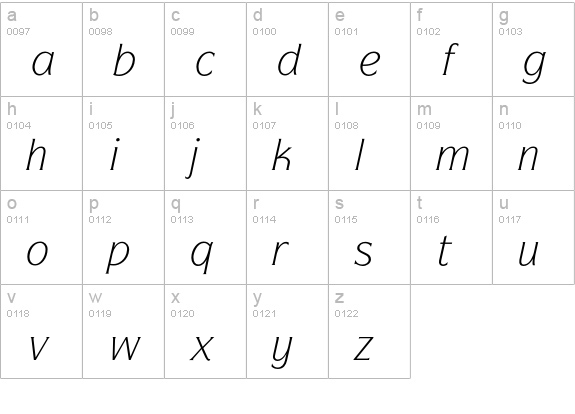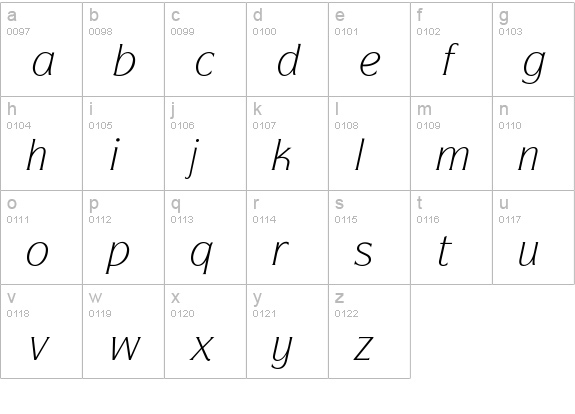
SymbolBookItalic Font Details
SymbolBookItalic is a captivating and elegant font that adds a touch of sophistication to any design project. With its delicate and flowing italic style, this font is perfect for conveying a sense of class and style. The graceful curves and intricate details of SymbolBookItalic make it a versatile choice for a wide range of applications, from branding to editorial design. And the best part? SymbolBookItalic is available for free download at FontsMarket.com. This means you can easily add this stunning font to your collection without any cost. So why wait? Download SymbolBookItalic today and elevate your design projects with its timeless beauty and charm.